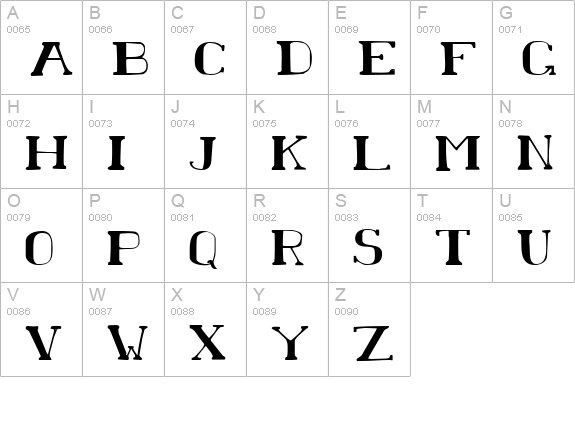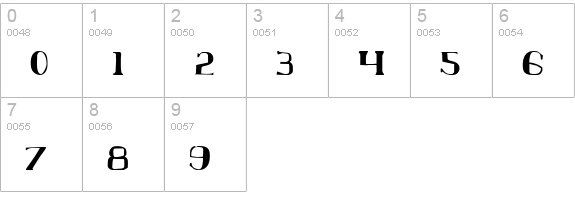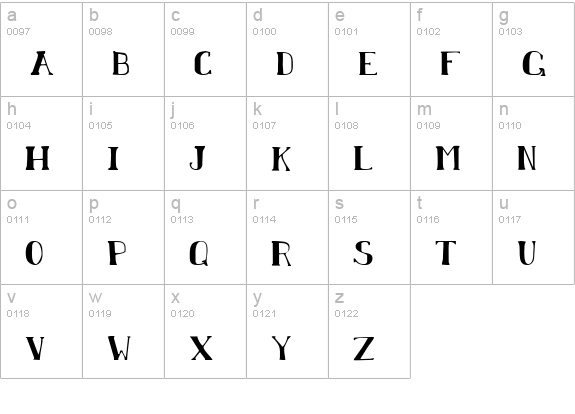
Chardin Doihle font is a stylish and elegant typeface that exudes sophistication and charm. Its delicate curves and graceful lines make it perfect for adding a touch of class to any design project. The font's timeless appeal makes it versatile and suitable for a wide range of applications, from wedding invitations to branding materials. What sets Chardin Doihle font apart is not just its beauty, but also the fact that it is available for free. That's right, you can download this exquisite font without spending a dime. Simply head over to FontsMarket.com to access this stunning typeface and elevate your designs with its classic elegance. Don't miss out on the opportunity to enhance your projects with the timeless beauty of Chardin Doihle font.